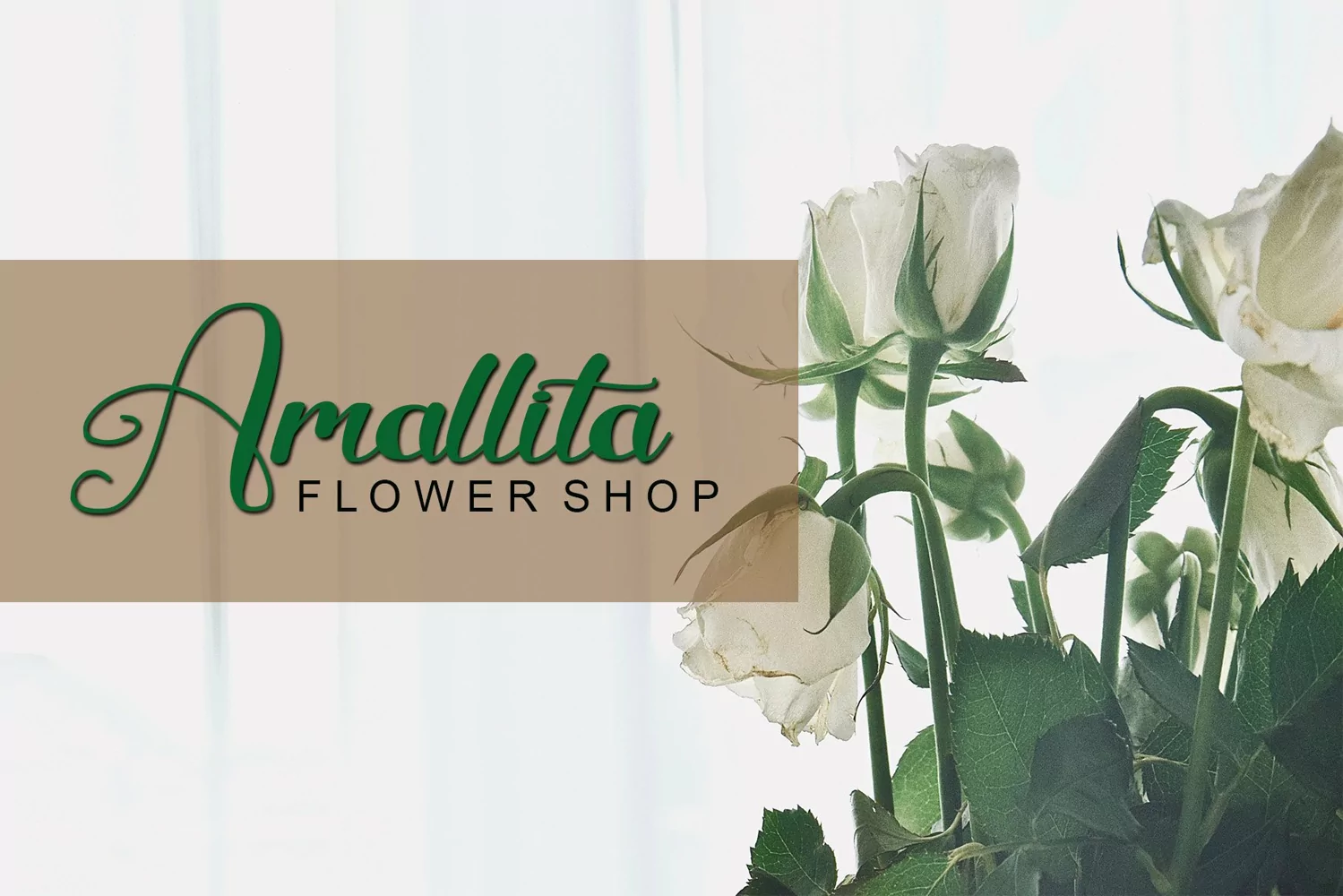
Beautiful Variella is a modern calligraphy font by Letterafa. It has flowing letters that will give your designs a unique and sweet look. Beautiful Variella is perfect; greeting cards, a package design, a brand identity, craft design, any DIY project, book title, wedding invitation, packaging, and more.